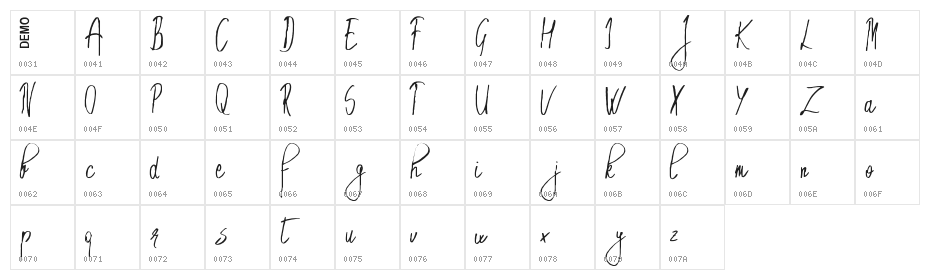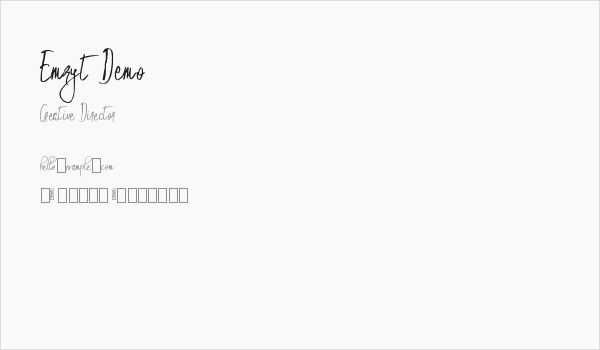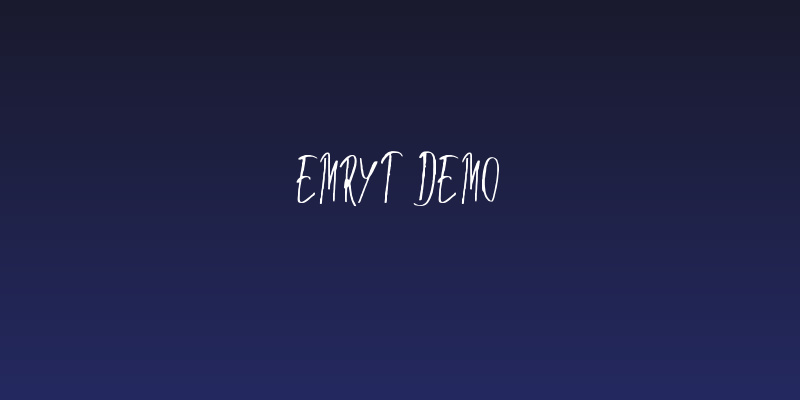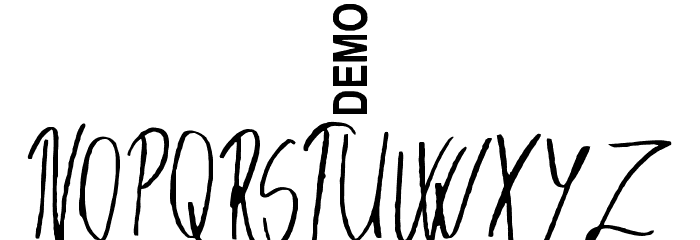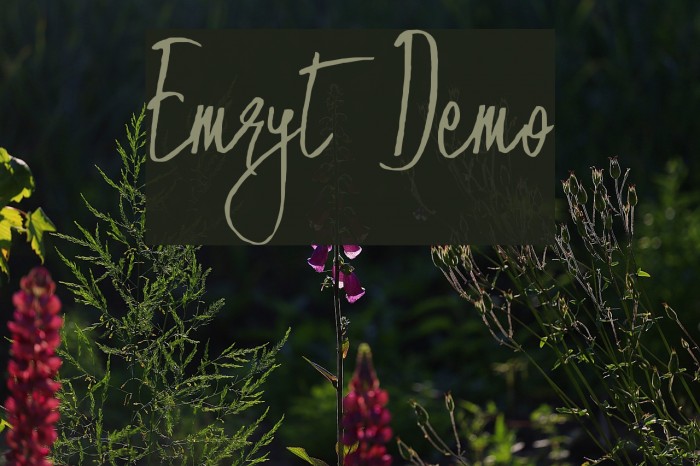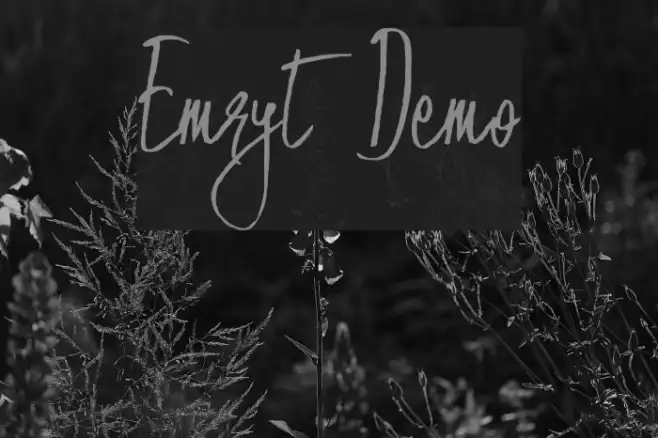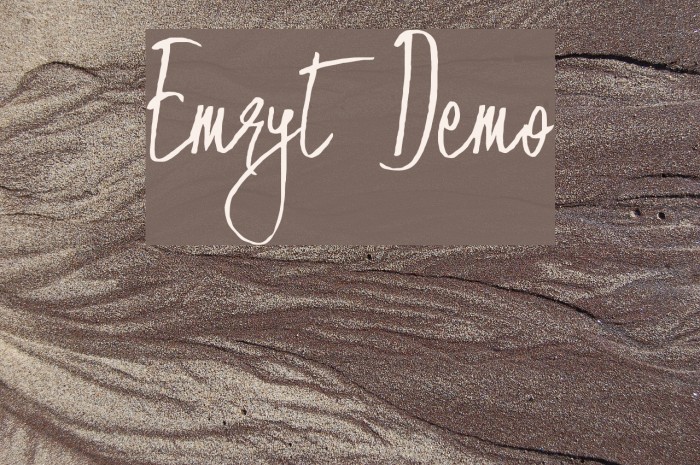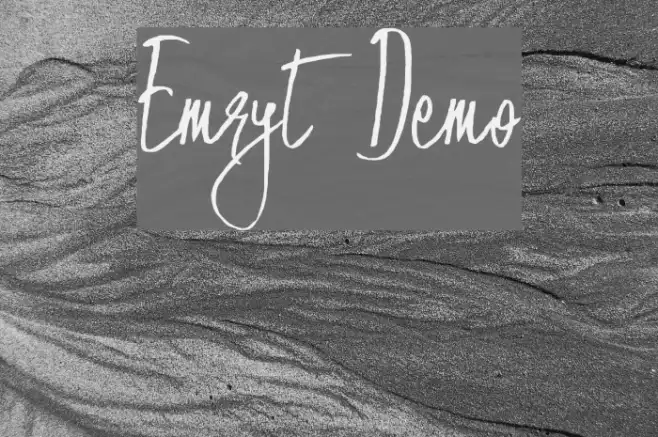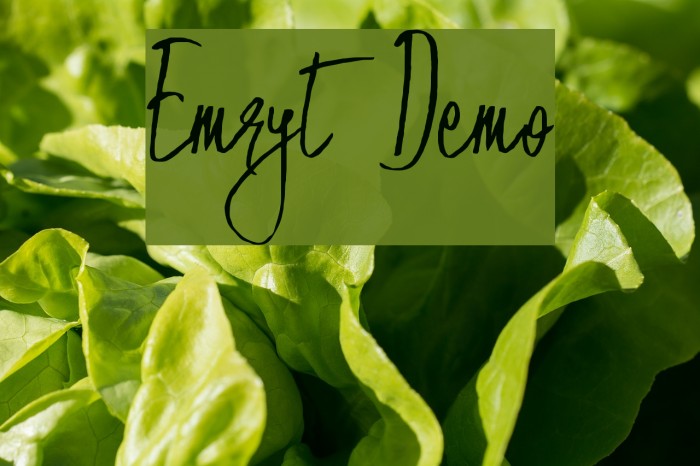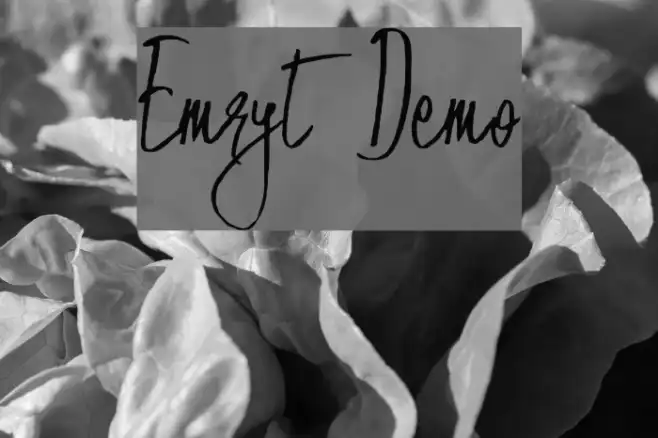
Emryt Demo Font
Emryt Demo Description
This font exhibits a dynamic and expressive style, characterized by its handwritten appearance. The uppercase letters are bold and slightly condensed, with a playful yet elegant flair. The lowercase letters are more fluid, with some characters featuring exaggerated loops and swirls, adding to the font's artistic appeal. The numbers and special characters maintain the same lively and energetic style, making the font suitable for creative and informal applications. Its unique character spacing and varying stroke thickness contribute to a high contrast, enhancing its visual impact.
| Proposed Projects | Ideal for creative projects such as invitations, greeting cards, artistic posters, and branding materials that require a personal touch. |